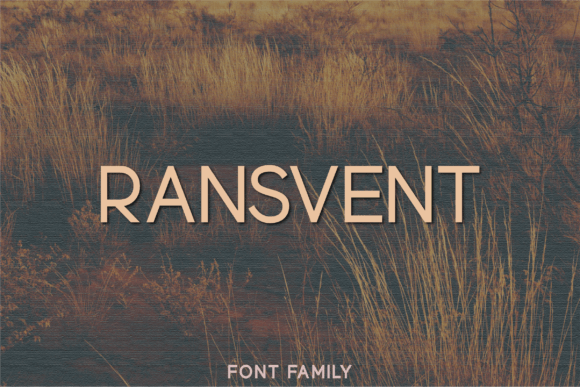
Ransvent Font: Elevate Your Designs with Timeless Elegance and Modern Flair
In the realm of typography, a font can make or break the visual identity of a design. With the vast array of fonts available, finding the perfect one that embodies both sophistication and adaptability can be a daunting task. However, for those seeking a masterfully designed font family that exemplifies the essence of grace, look no further than Ransvent. This multifaceted font is poised to revolutionize the way designers and content creators approach their craft, offering an unparalleled blend of timeless elegance and modern flair.
Introducing Ransvent: A Font Family of Unmatched Versatility
Ransvent is a thoughtfully crafted font family that boasts an impressive range of five unique weights: THIN, LIGHT, REGULAR, BOLD, and BLACK. This extensive spectrum of weights allows designers to explore a wide range of creative possibilities, making it an ideal pick for various design projects. Whether you’re working on a delicate, intricate design or a bold, statement-making piece, Ransvent’s versatility ensures that your vision is brought to life with precision and finesse.
- THIN: Perfect for designs that require a soft, subtle touch, Ransvent’s THIN weight offers a delicate, refined aesthetic.
- LIGHT: Ideal for projects that demand a slightly bolder presence, the LIGHT weight strikes a balance between elegance and visibility.
- REGULAR: As the foundation of the Ransvent family, the REGULAR weight serves as a versatile, go-to choice for everyday design needs.
- BOLD: When a stronger, more assertive presence is required, Ransvent’s BOLD weight steps up to the challenge, injecting confidence and emphasis into your design.
- BLACK: For designs that demand maximum impact, the BLACK weight is the ultimate choice, providing a robust, commanding presence that grabs attention.
Endless Creative Possibilities with Ransvent
Ransvent’s impressive range of weights and styles lends itself to a multitude of design applications. Graphic designers, content creators, and typography enthusiasts can explore a vast array of creative avenues, including:
- Branding and Logo Design: Establish a strong visual identity with Ransvent’s distinctive, elegant aesthetic.
- Digital Publishing: Elevate your digital content with Ransvent’s crystal-clear readability and sophisticated charm.
- Print Design: From business cards to billboards, Ransvent’s versatility shines in various print materials.
- Web Design: Create stunning websites with Ransvent’s adaptable, user-friendly typography.
Timeless Elegance Meets Modern Flair
Ransvent’s design is rooted in a deep understanding of typographic excellence. The font family seamlessly blends classic sophistication with modern sensibilities, yielding a unique visual identity that stands out in today’s design landscape. With Ransvent, you can:
- Convey Sophistication: Impress your audience with Ransvent’s refined, elegant aesthetic.
- Add Modernity: Inject a touch of contemporary flair into your designs with Ransvent’s sleek, streamlined lines.
- Ensure Readability: Benefit from Ransvent’s exceptional legibility, ensuring your message is conveyed with clarity and precision.
Ransvent: A Font Family Designed with Designers in Mind
Ransvent is more than just a font family – it’s a creative partner designed to streamline your design process. With Ransvent, you can:
- Streamline Your Workflow: Switch seamlessly between weights and styles to explore different design avenues.
- Explore New Creative Avenues: Push the boundaries of your design with Ransvent’s extensive range of creative possibilities.
- Enhance Your Brand’s Visual Identity: Establish a consistent, professional image with Ransvent’s distinctive typography.
Conclusion: Unlock Endless Creative Possibilities with Ransvent
In conclusion, Ransvent is a game-changing font family that redefines the boundaries of typography. With its masterful blend of timeless elegance and modern flair, Ransvent offers designers and content creators an unparalleled tool for creating stunning visual identities. Whether you’re working on a delicate, intricate design or a bold, statement-making piece, Ransvent’s versatility and typographic excellence ensure that your creation stands out with unrivaled distinctiveness. Experience the limitless creative possibilities of Ransvent and elevate your designs to new heights.